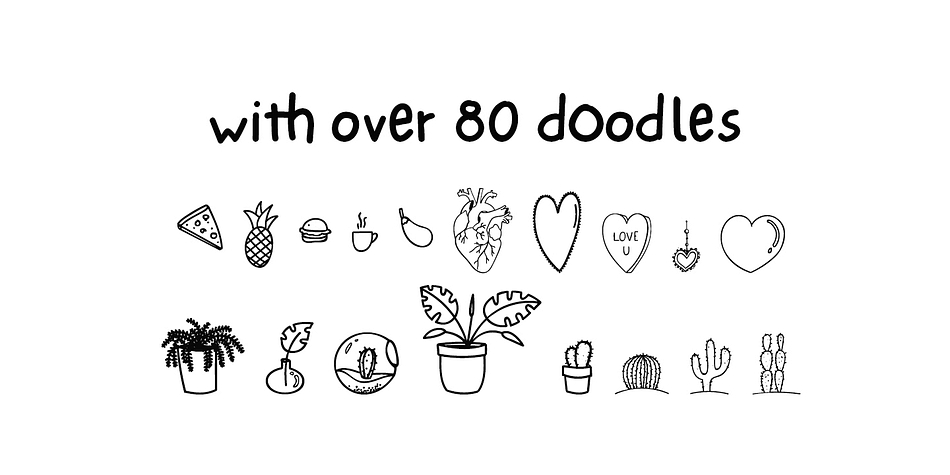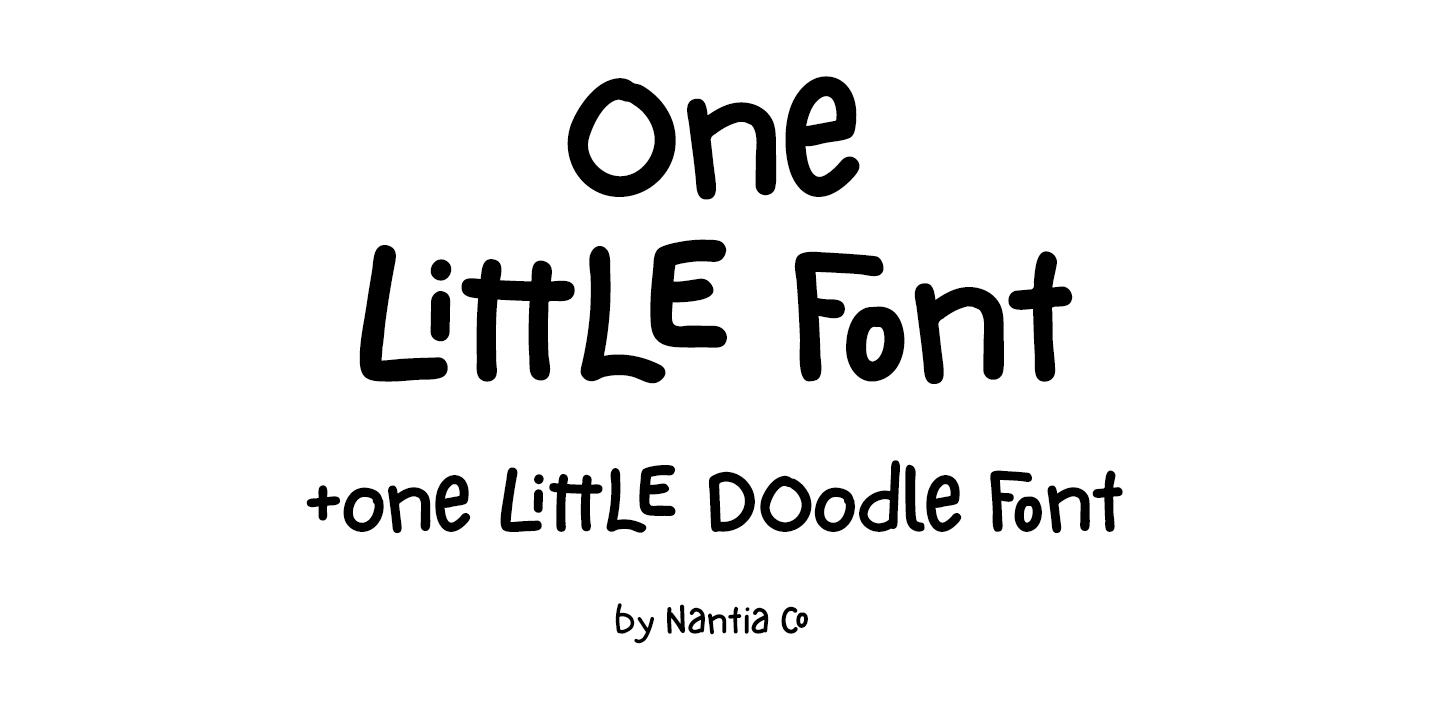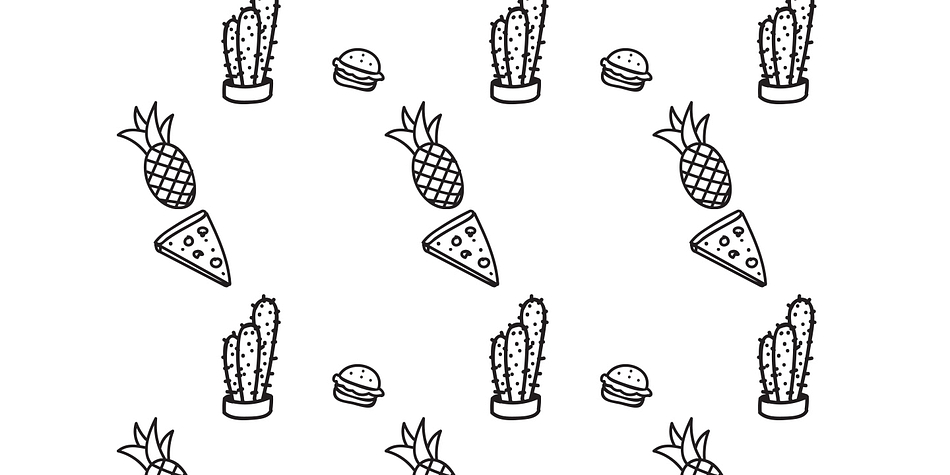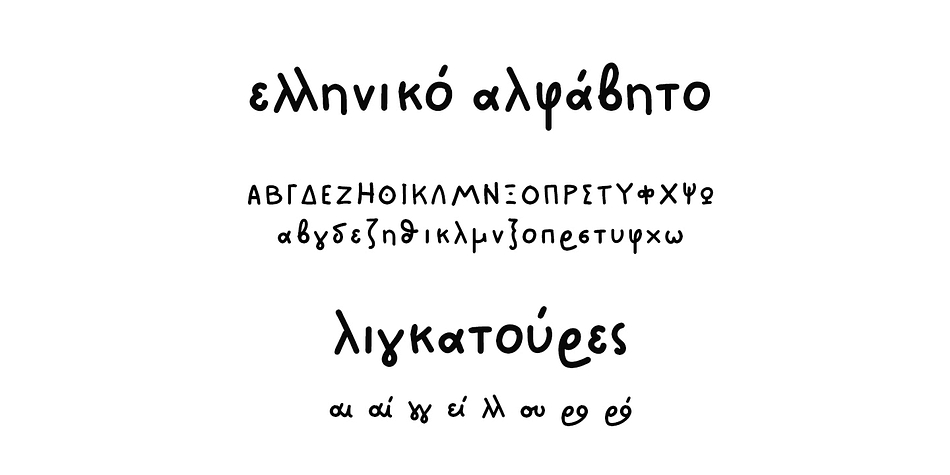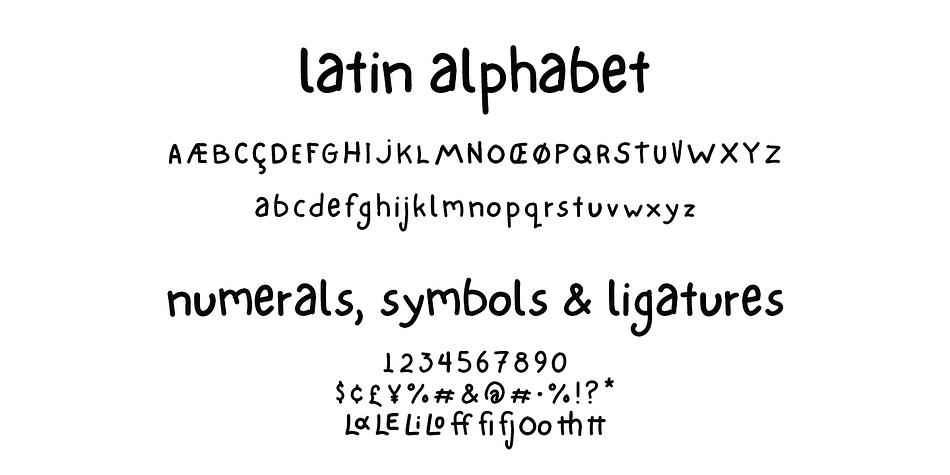
One Little Font is a hand drawn, kids and dingbat font family. This typeface has five styles and was published by Konstantina Louka.
One Little Font is an adorable hand-made typeface with a lot of personality. With double letter ligatures and stylistic alternates, this One Little Font can be a mighty companion to your next graphic design project. From “hand-written” quotes to product packaging, merchandise, and branding projects, this One Little Font is so versatile that it can cover them all.
One Little Font includes extended Latin characters, Greek characters, ligatures, and numerals.
One Little Doodle Font includes 80+ doodle icons in PUA font.